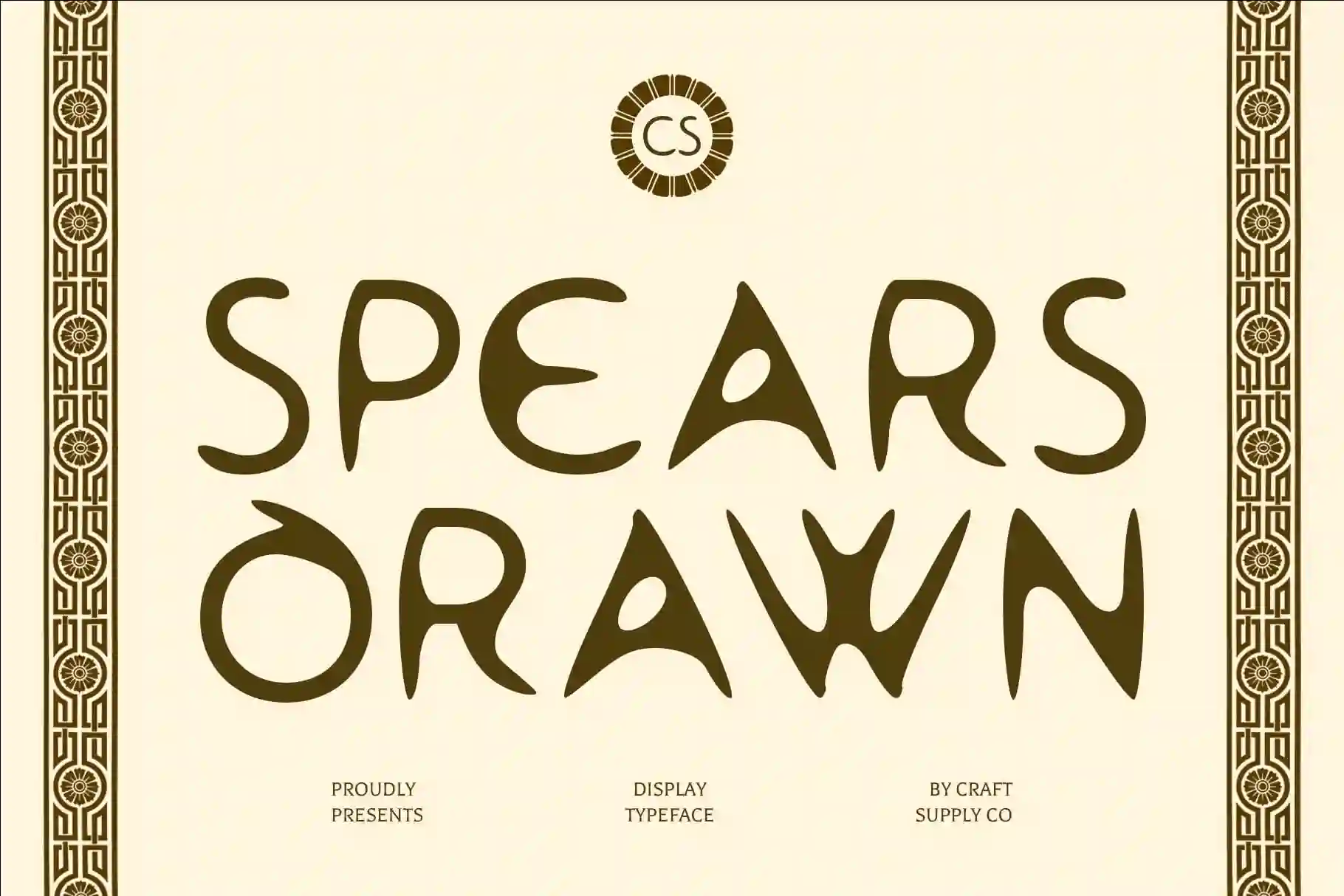
CS Spears Drawn – Uncial Display Font with Historic Elegance
Historic Tradition with Artistic Flair
This Font takes inspiration from ancient manuscripts, translating their timeless character into a modern display typeface. With its uncial-style sans serif structure, the font conveys tradition and authority while remaining approachable and versatile. The letterforms capture a sense of heritage, making it ideal for projects that want to connect with classical aesthetics.
Hand-Drawn Finish for Unique Personality
What sets font apart is its expressive drawn texture. Each character feels handmade, with subtle irregularities that highlight artistry and individuality. This handcrafted quality not only enhances the font’s visual appeal but also adds warmth, ensuring it stands out in a world of sterile, digital-perfect typefaces.